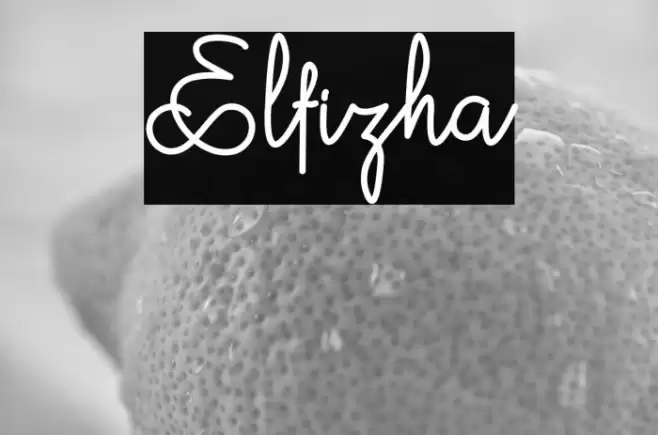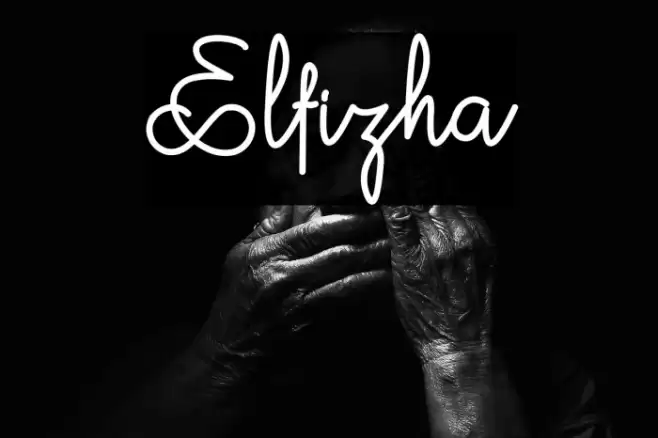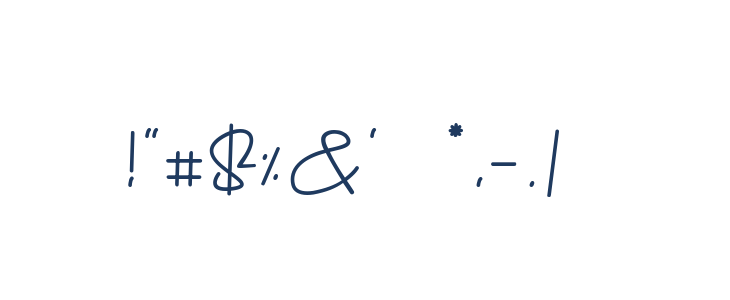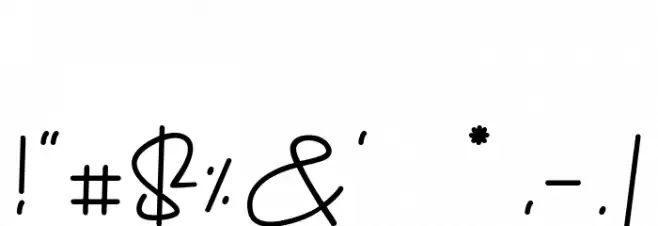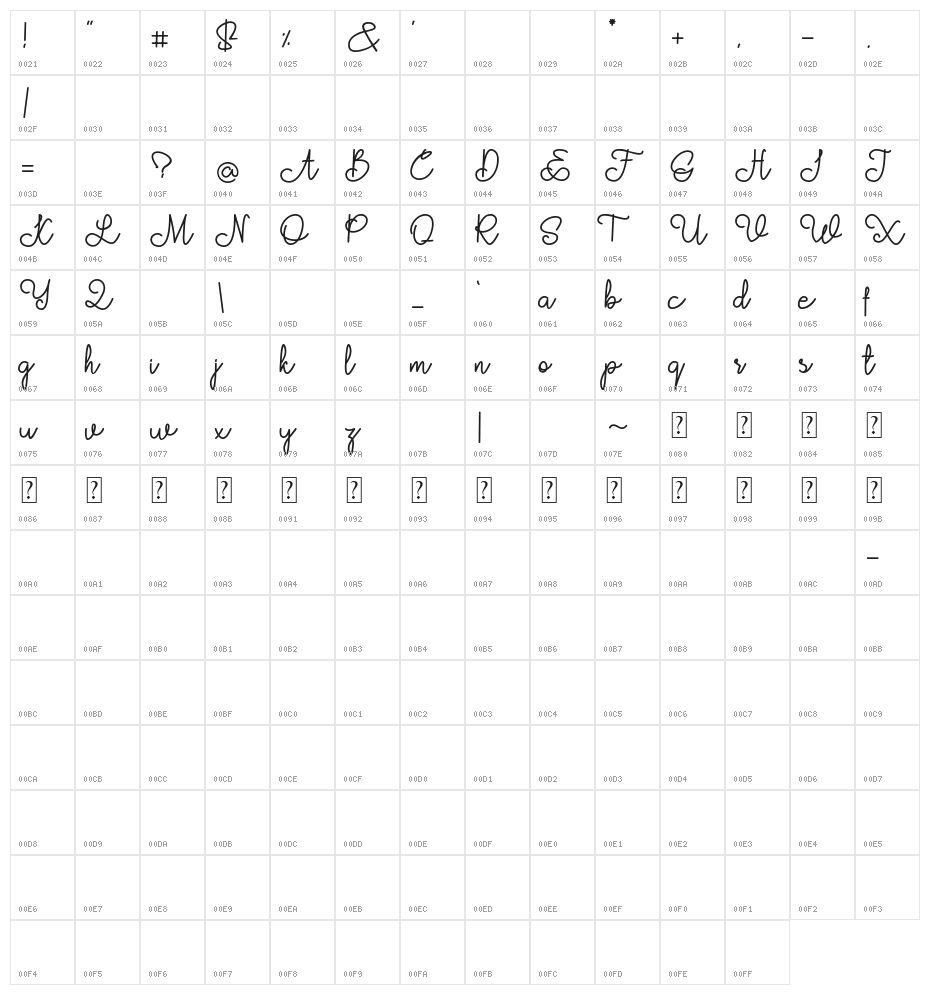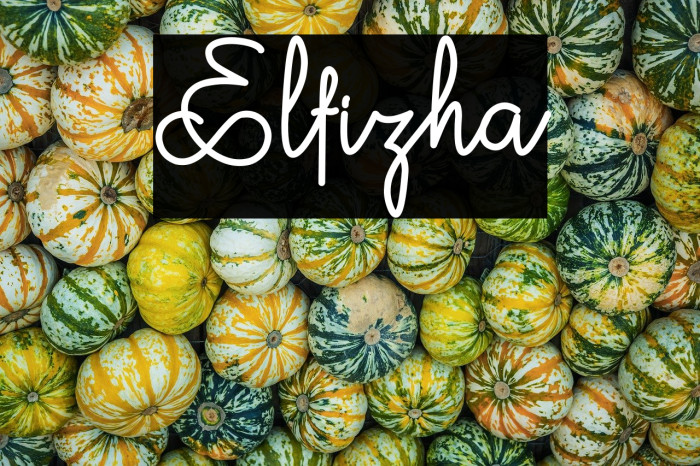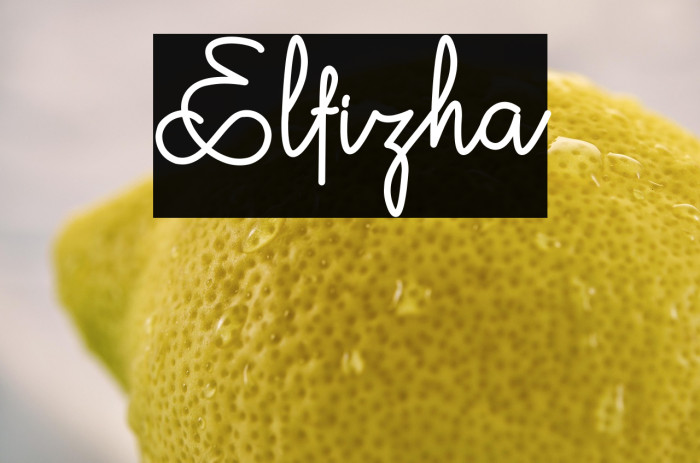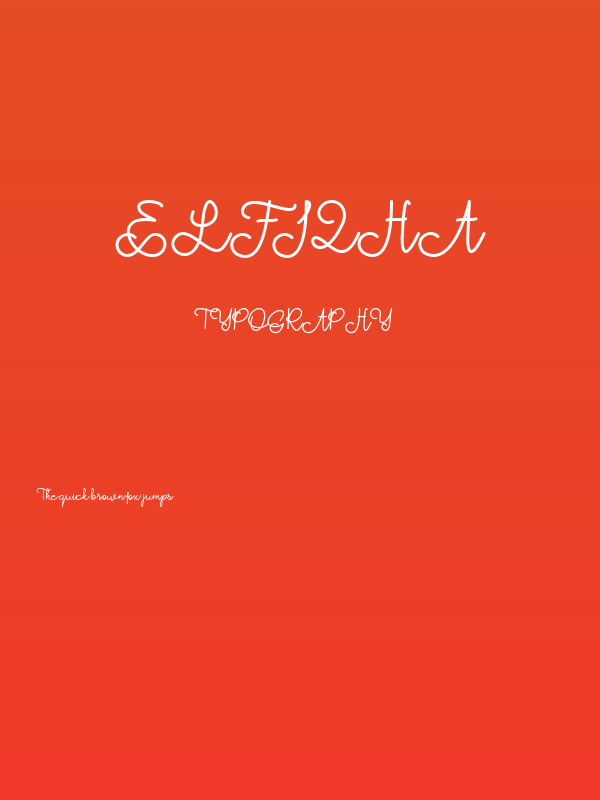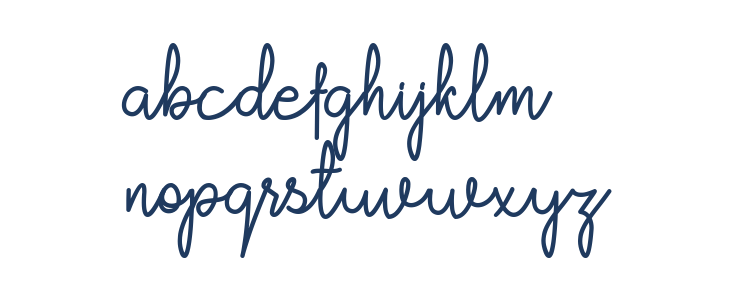
Elfizha Font
Elfizha Description
This font features a playful and elegant script style with a handwritten appearance. The uppercase letters are characterized by smooth, flowing curves and loops, giving them a whimsical and artistic feel. The lowercase letters maintain a consistent flow, with some letters extending below the baseline, adding to the font's dynamic nature. The numerals and special characters are designed to complement the letters, maintaining the same fluidity and style. This font is ideal for projects that require a personal touch, such as invitations, greeting cards, or branding materials. Its unique style makes it stand out, while still being legible and versatile.
A playful and elegant handwritten script font with smooth, flowing curves from Regular fonts.
- Proposed Projects: Ideal for invitations, greeting cards, branding, and personal projects.
- Use Case: Logos, Headlines, Invitations